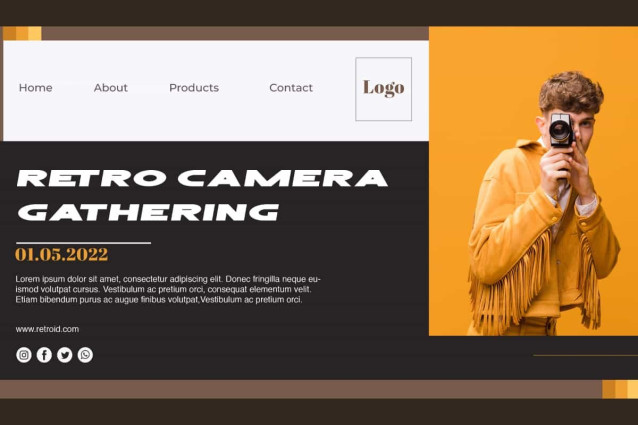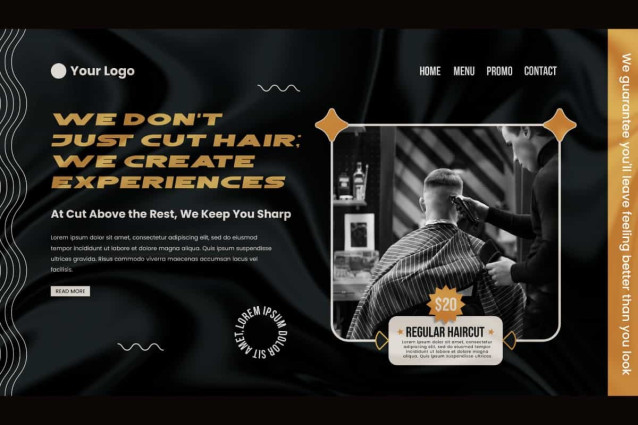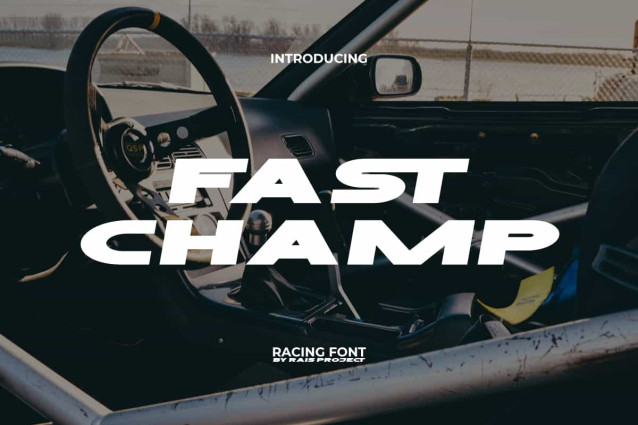
Fast Champ Font
Fast Champ Font is a sporty racing font with casual style exclusive by RaisProject. This font can convey an exclusive with modern impression because of its bold and firm shape. It will be good for any designs, such as signage, stationery, custom design, poster, product packaging, quotes, poster, brand image, advertisement, invitation, label, marketing material, website page, and more!
Fast Champ Font includes a full set of ALL CAPS for Uppercase and Lowercase Letters, Numerals, and large range of Punctuation. This stylish font will be suitable for various industries, such as sports, automotive, fashion, game, barber shop, cafe, event or festival, photography, printing, publishing, etc.